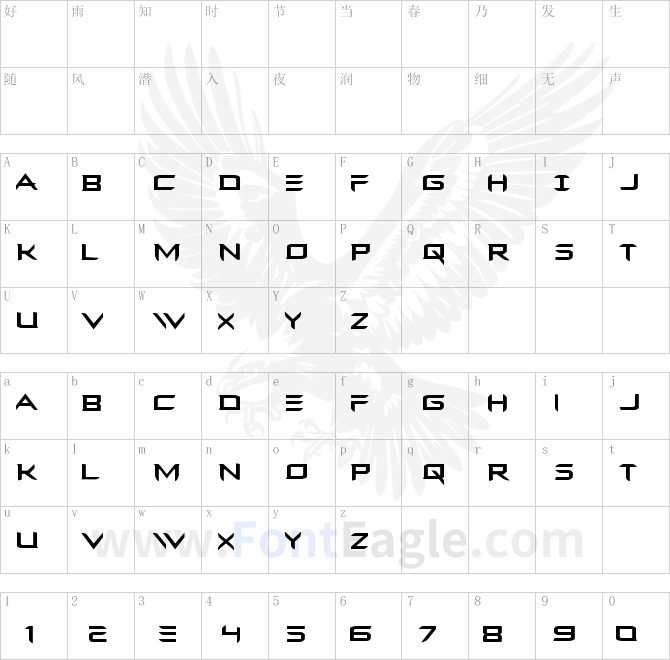
- Font name:Ferret Face
- Font Subfamily ID:Ferret Face Regular: 2013
- Font Full Name:Ferret Face Regular
- Font Version:Version 1.0; 2013
- Postscript:FerretFace